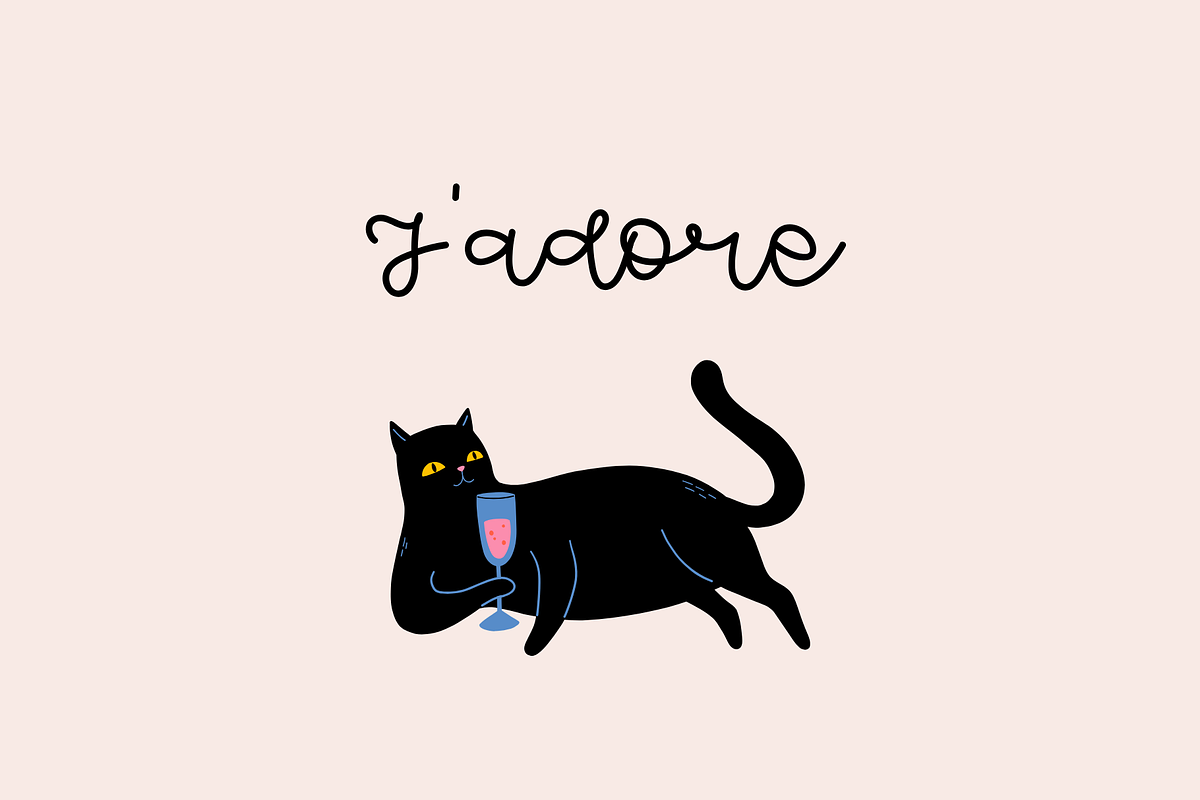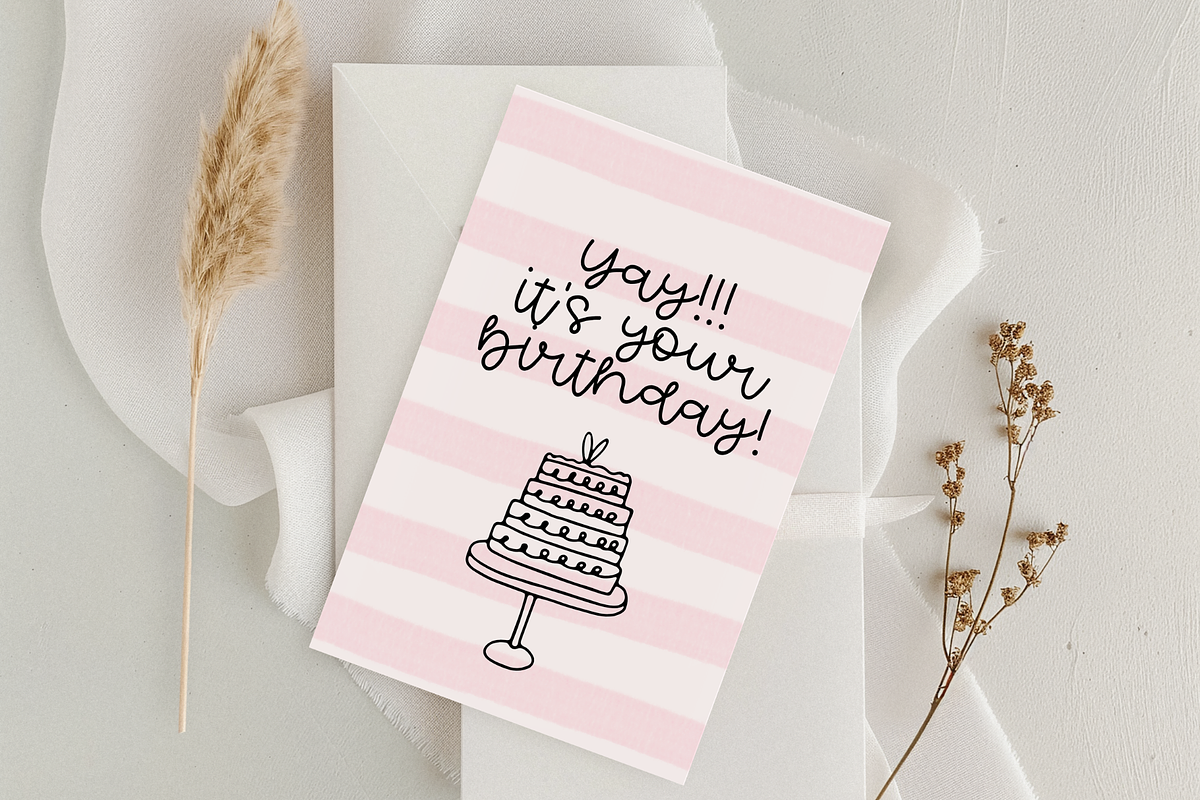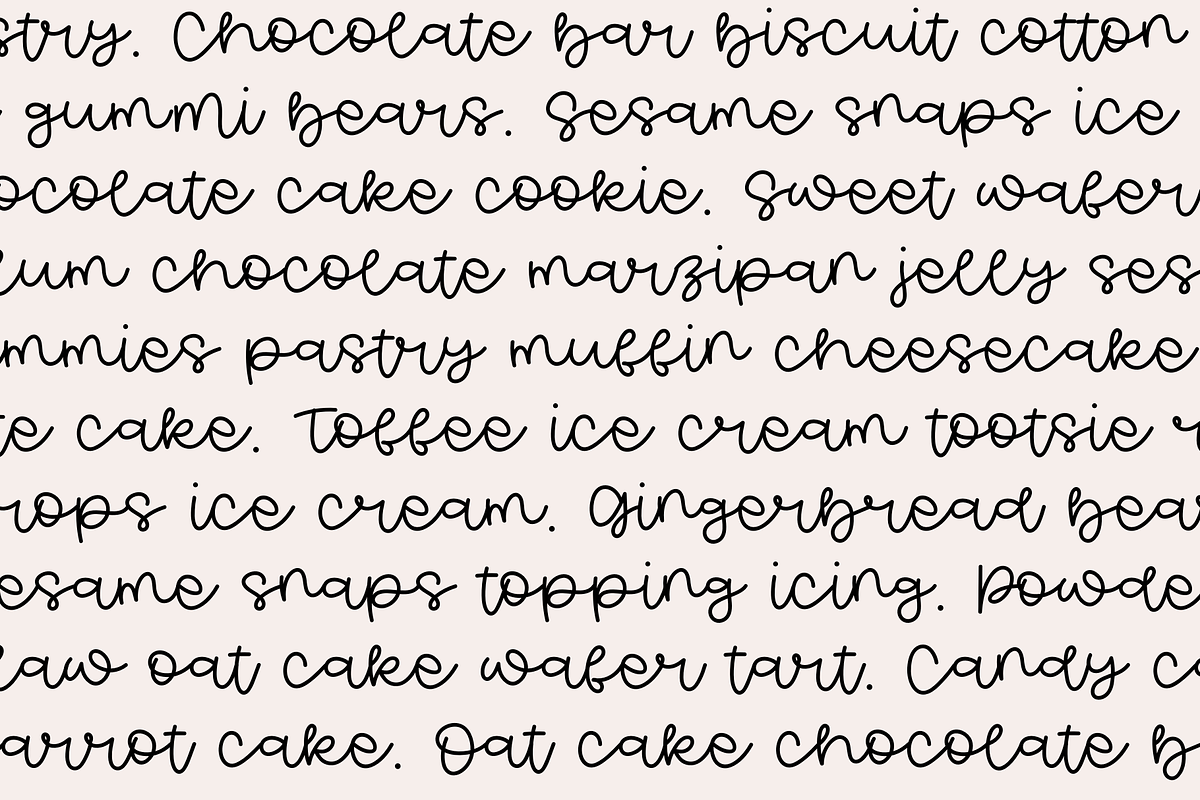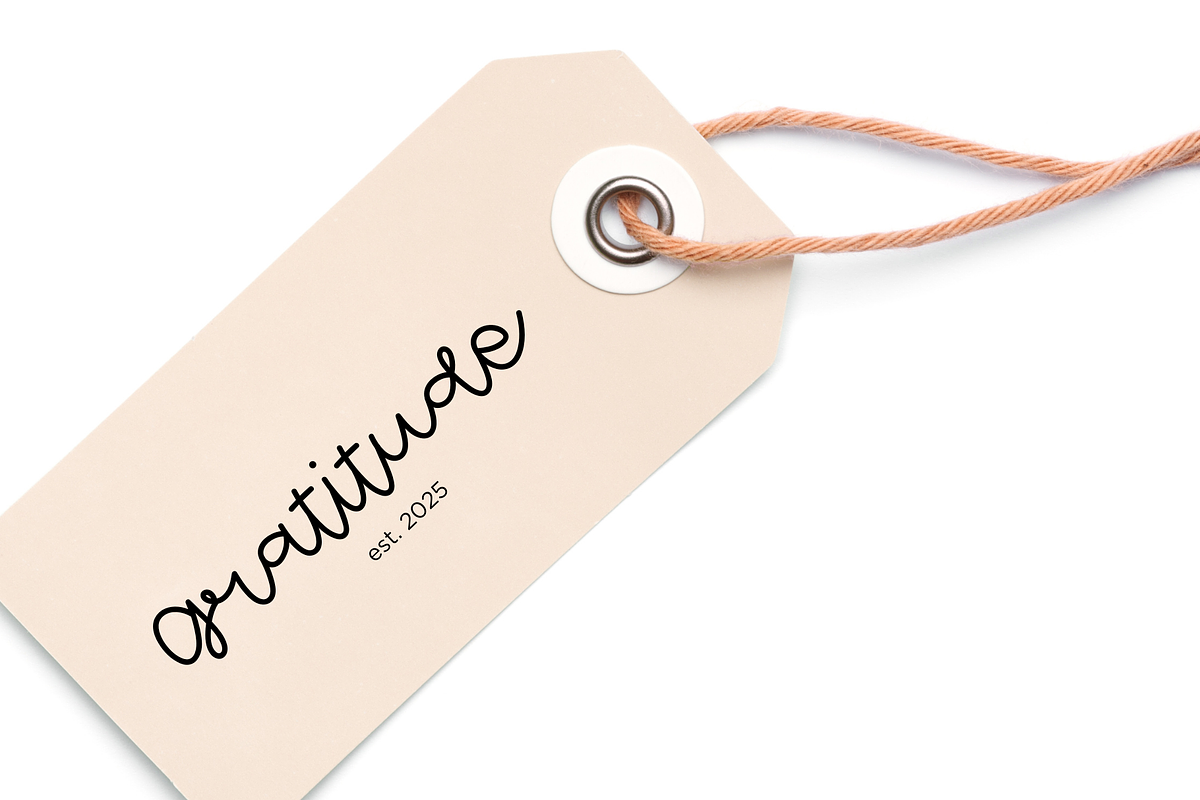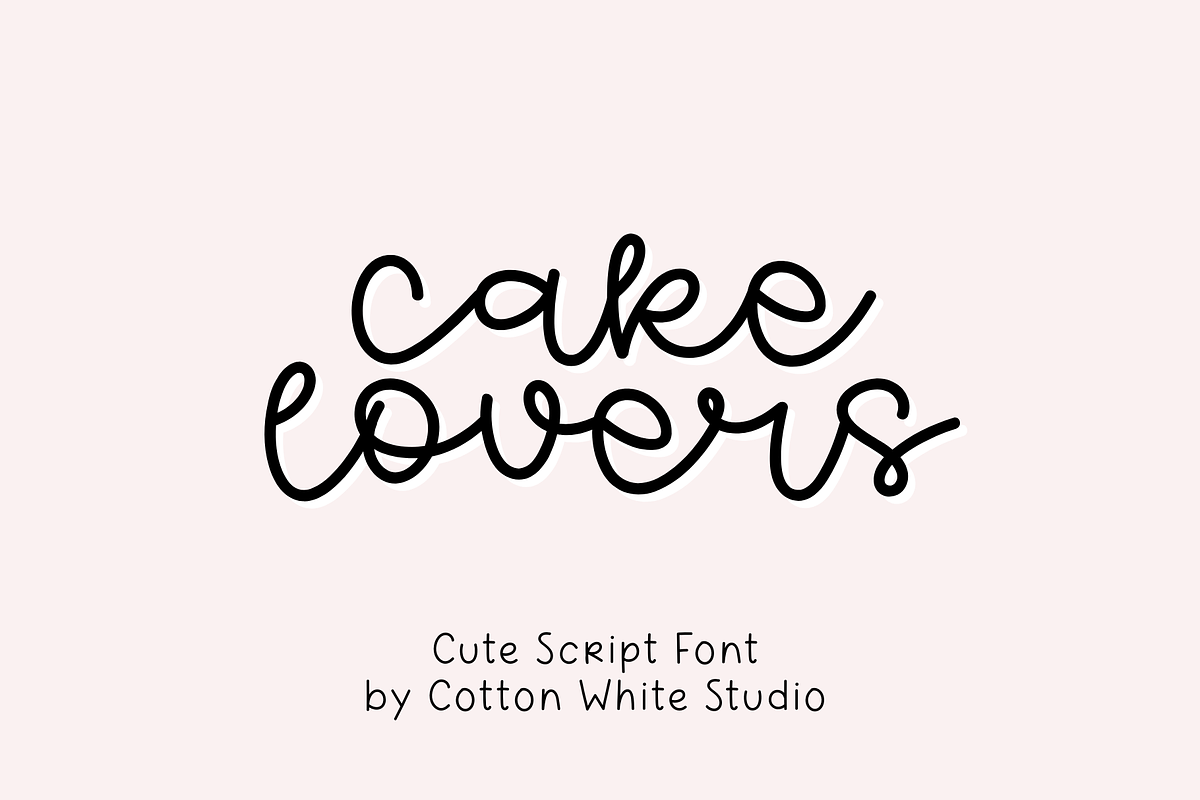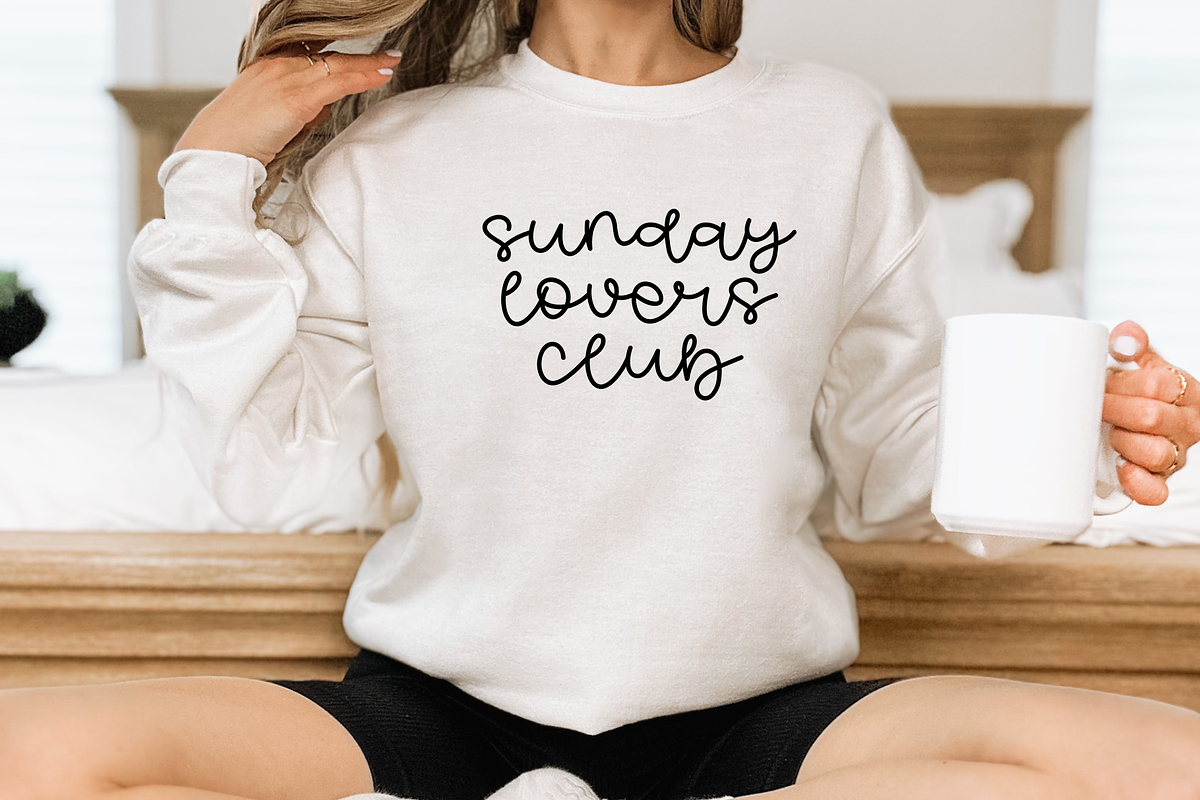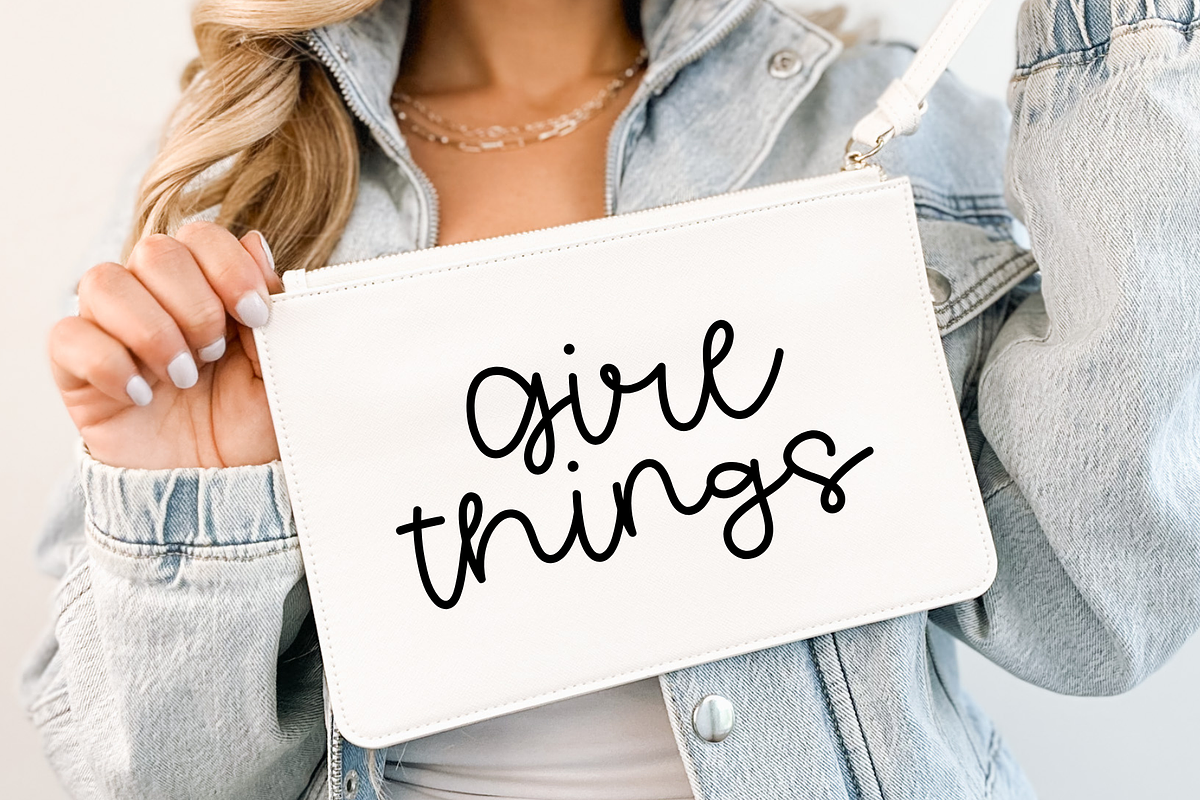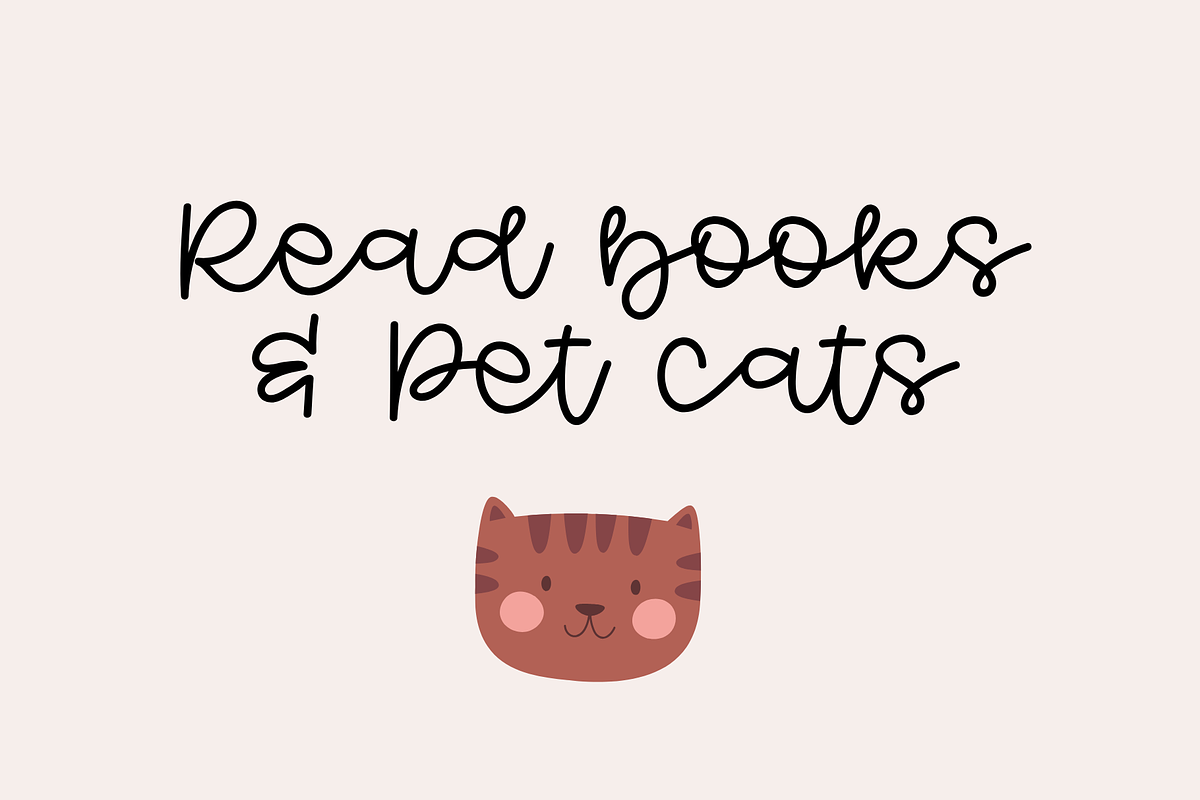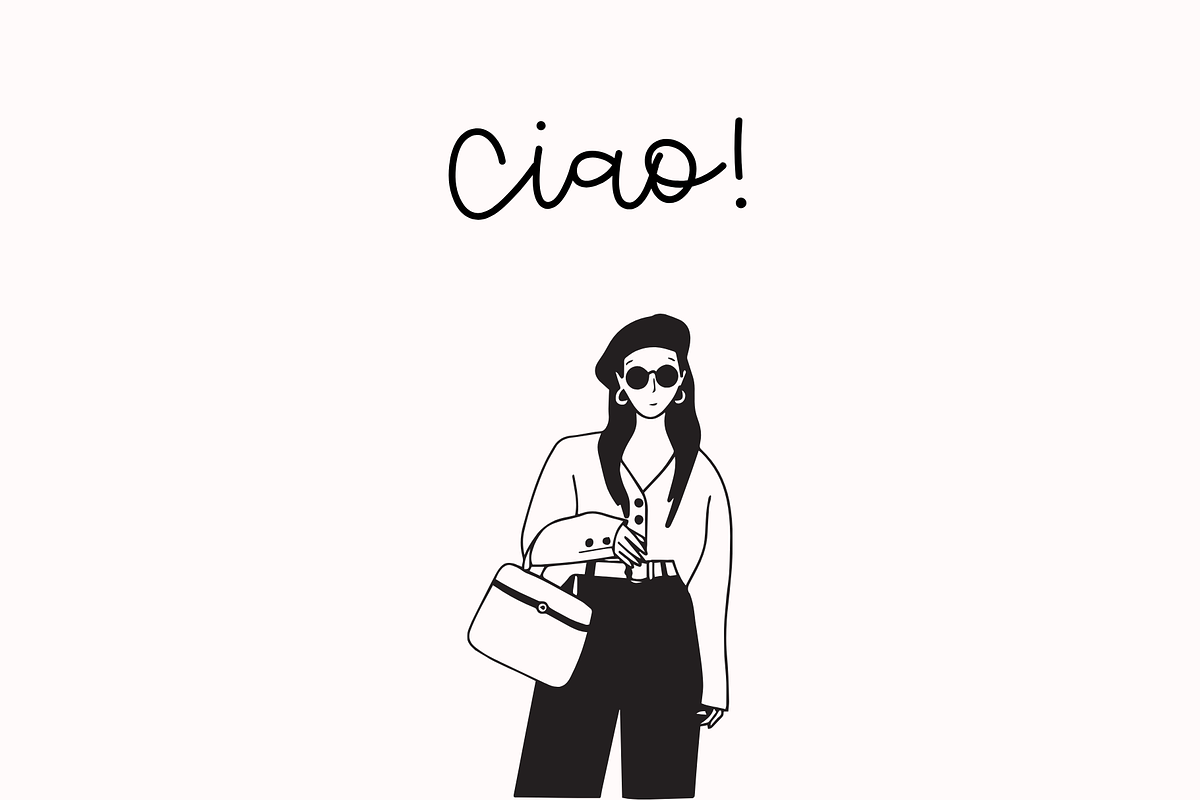
Cake Lovers Cute Font
A fun and whimsical font that adds a playful touch, making it ideal for social media, creative projects, invitations, posters, crafts, and much more!